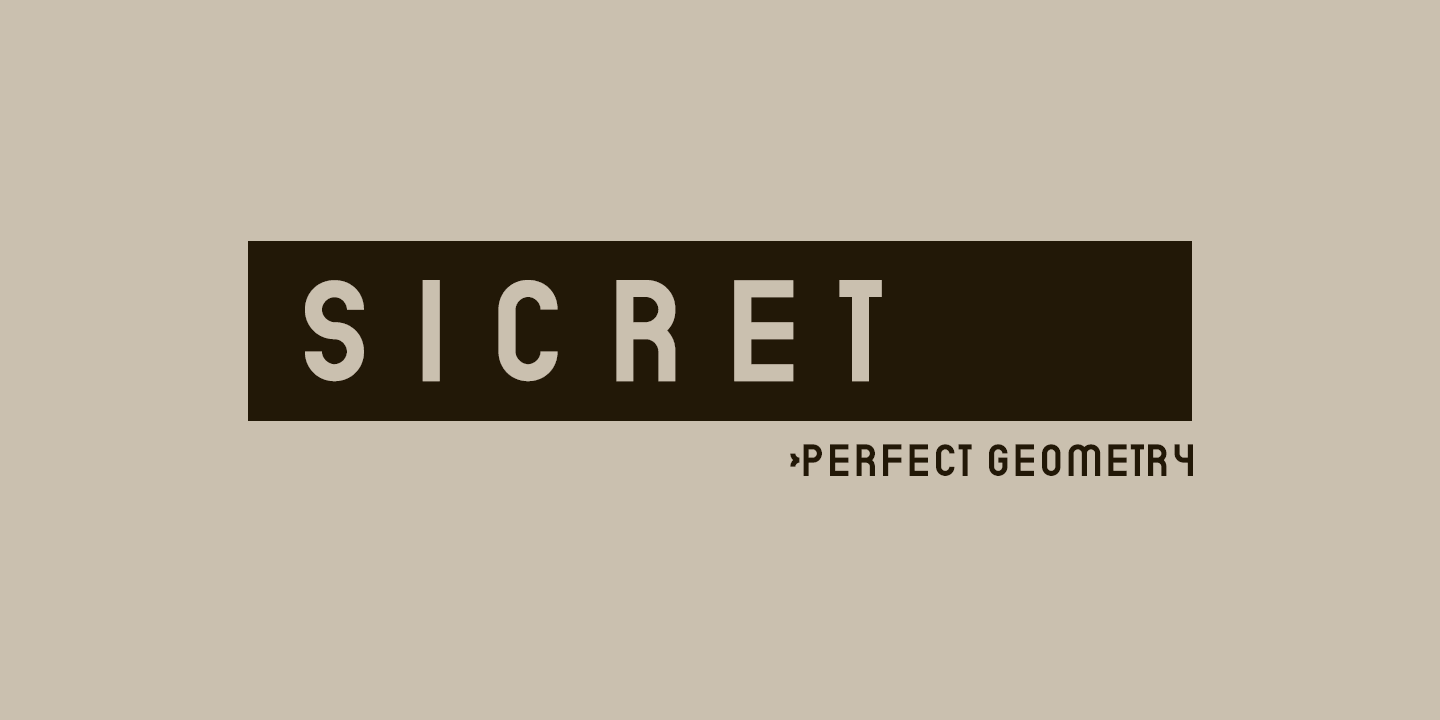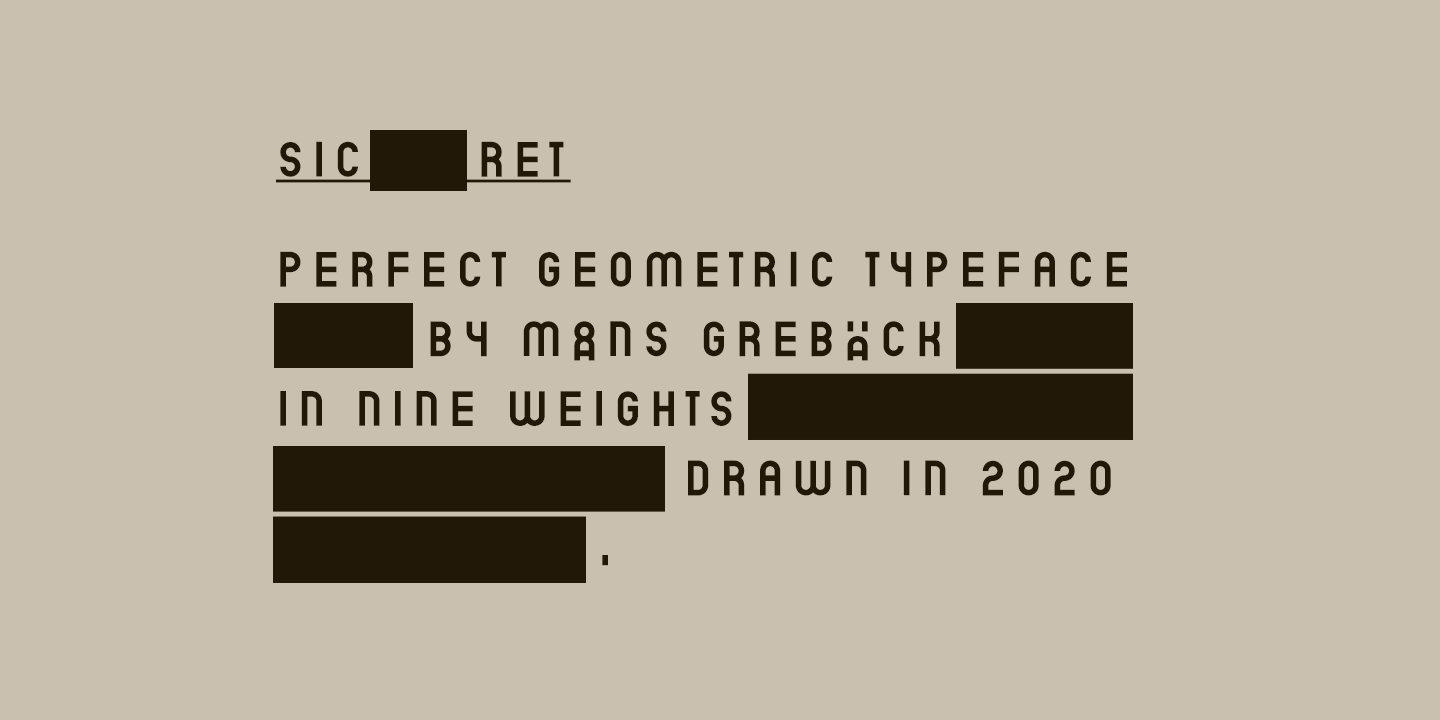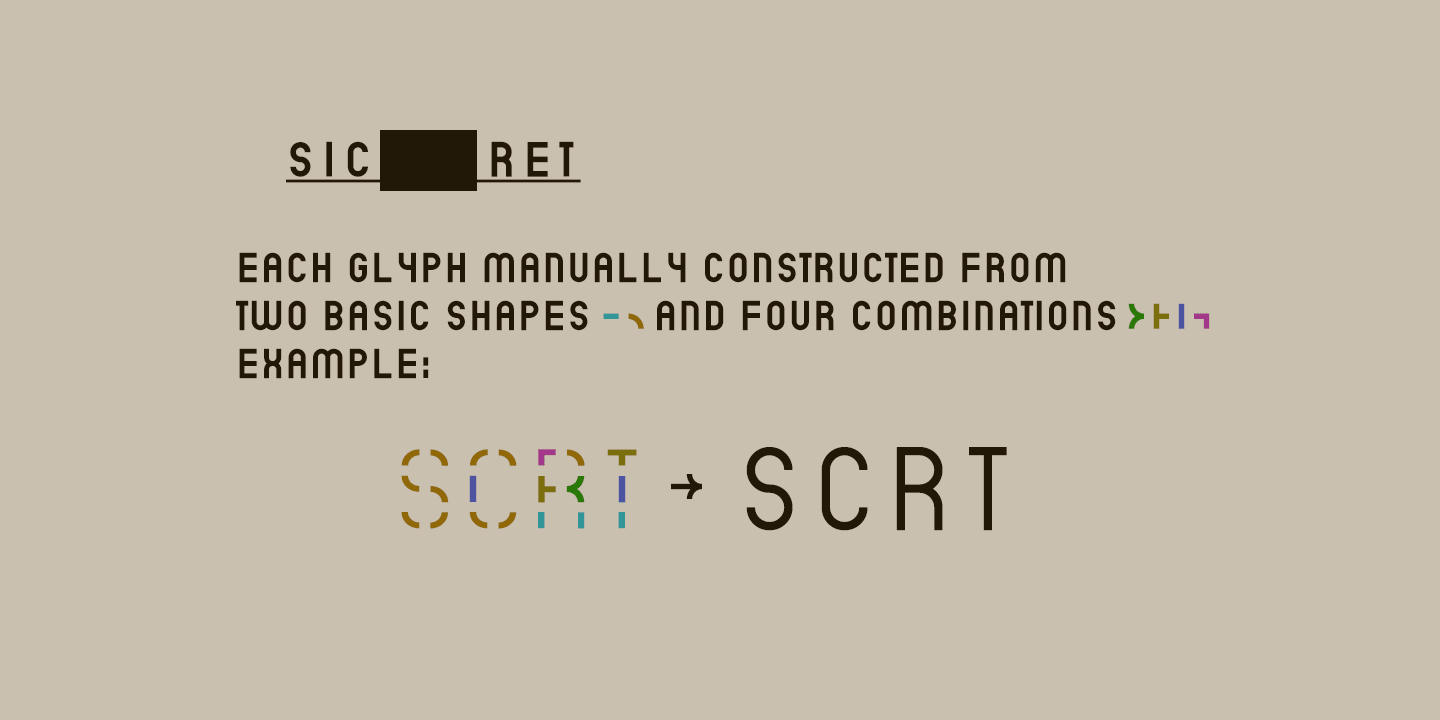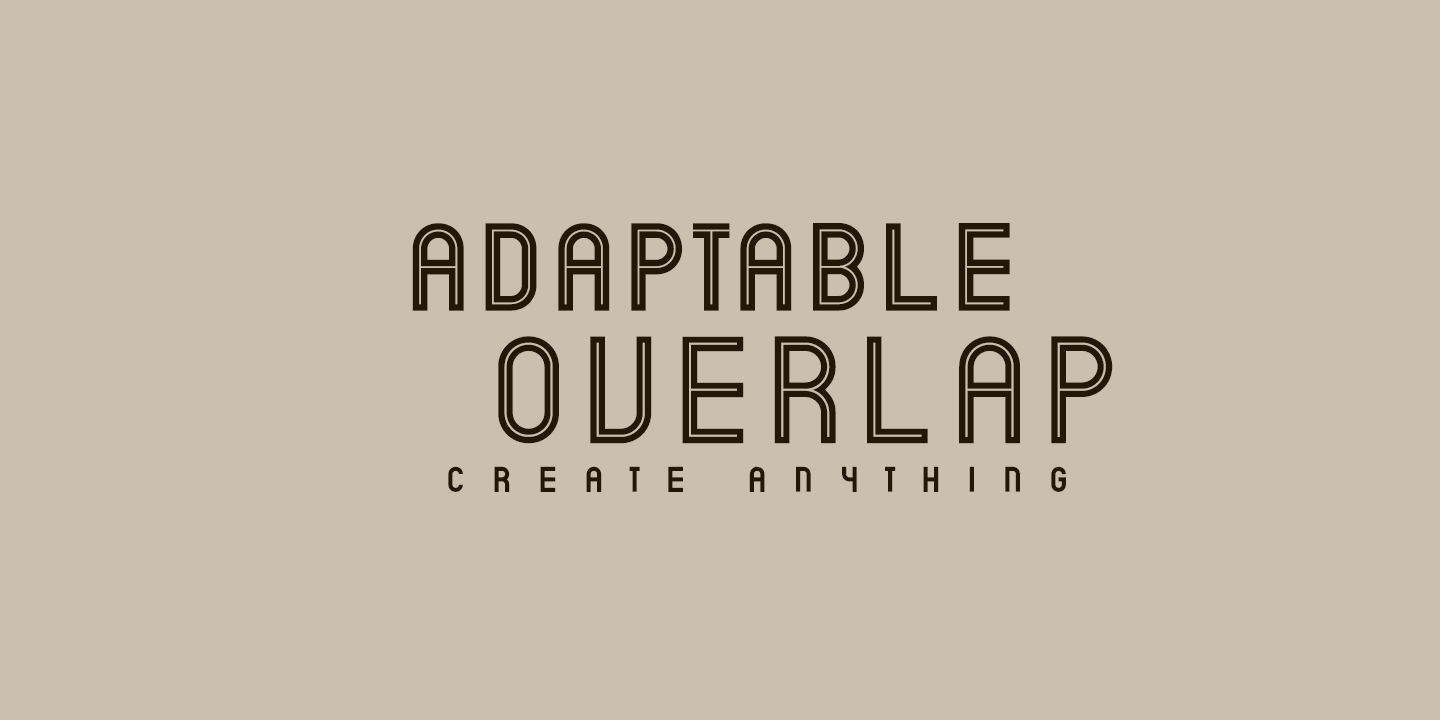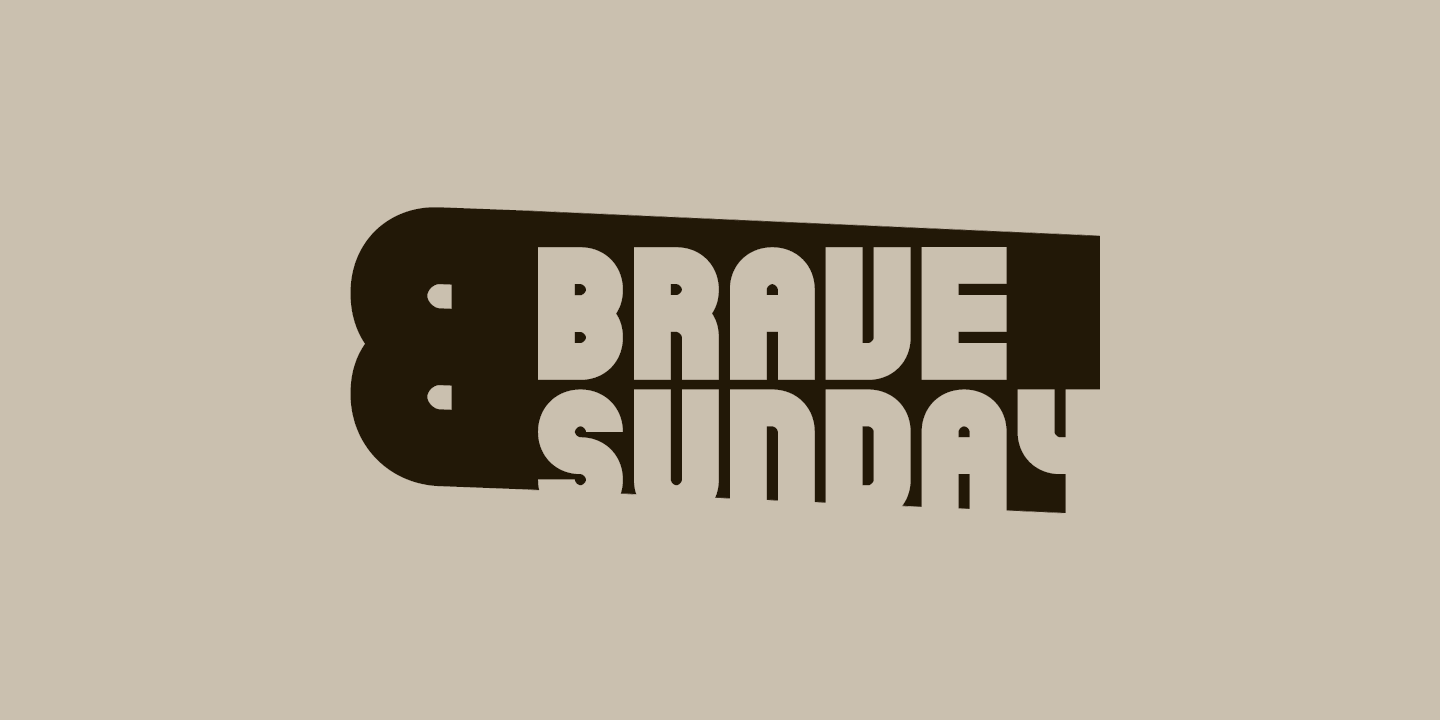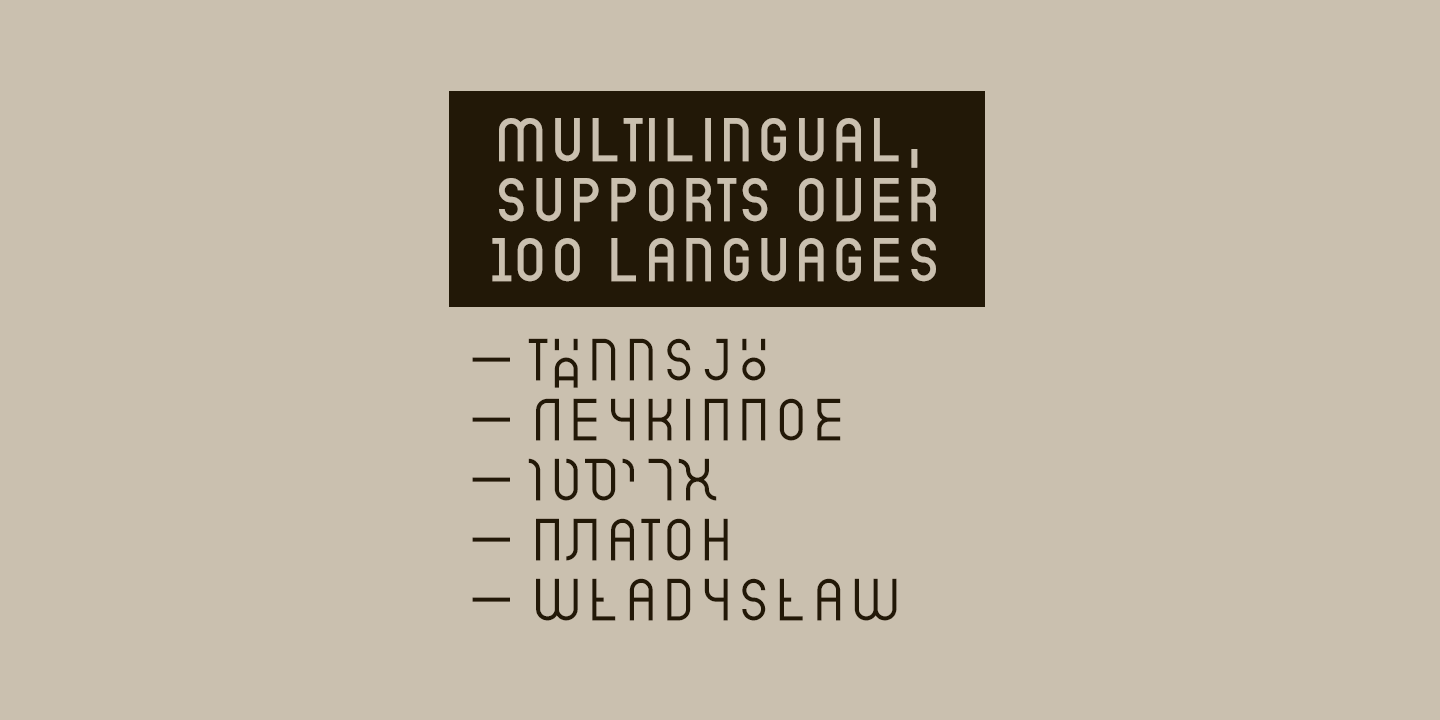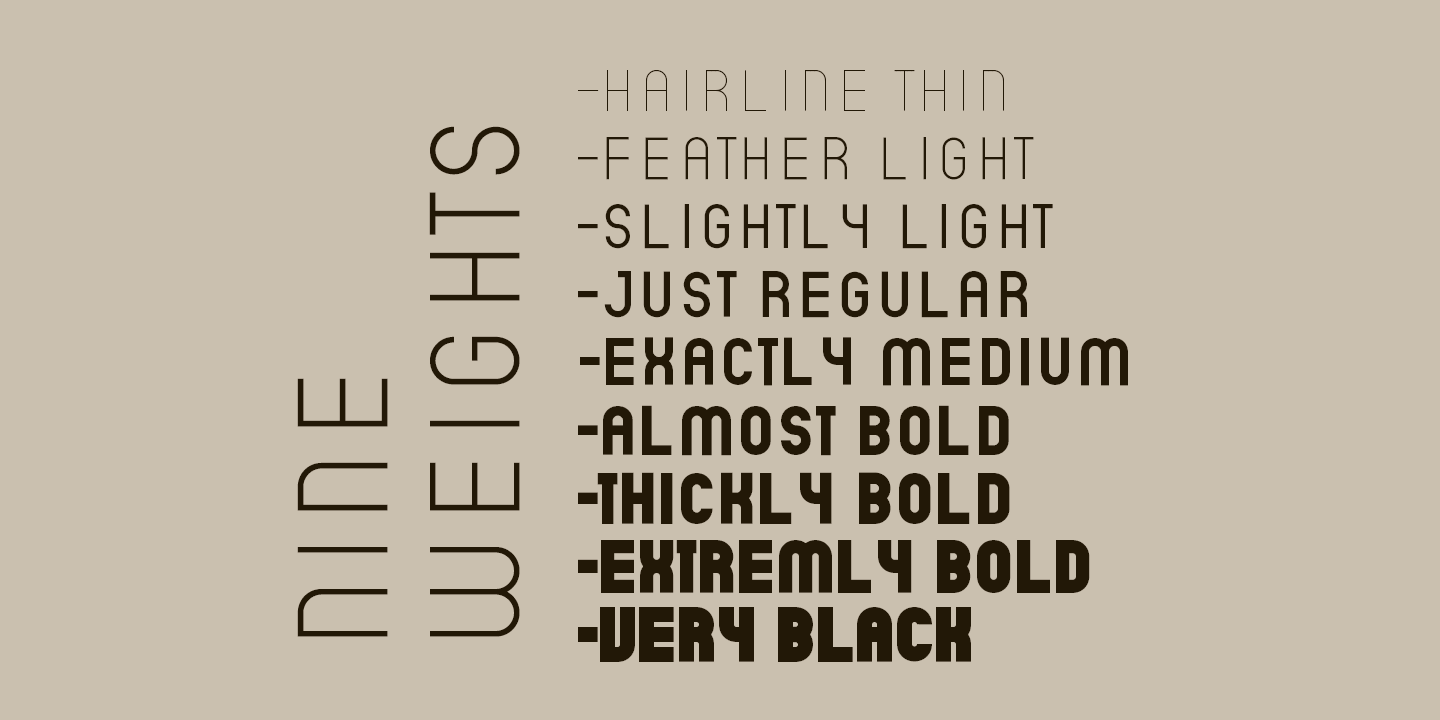
Sicret
Sicret is a perfectly geometric typeface family.
It was drawn by Måns Grebäck in 2020, and each one of its glyphs was manually created by following a strict mathematical pattern consisting of only two basic shapes, in four different combinations, set on a three units tall grid.
The resulting product is a true monoline font with a solid character, with an official look while yet going towards sci-fi because of its digital nature.
The family consists of nine weights: Thin, Extra Light, Light, Regular, Medium, Semi Bold, Bold, Extra Bold and Black.
The range of weights makes it very adaptable, and all the weights works very well together to give a sentence or graphic tone and emphasization.
As Sicret is a font with over 850 glyphs, it is guaranteed to contain all characters you’ll ever need, including all punctuation and numbers.
It has a very extensive lingual support, covering Greek, Cyrillic, Hebrew as well as European and American languages.